A joyful type toolkit designed for young audiences
Give your projects friendly, readable character with the Most Popular Kids Font Bundle—a curated library of 52 premium children’s fonts crafted for clarity, fun, and versatility. From bubbly displays to sketchy doodles and comic styles, every typeface in this pack is tuned for storybooks, comics, coloring pages, classroom materials, birthday invitations, labels, stickers, social graphics, and print‑on‑demand products. The bundle is valued at $1,034 and includes a commercial license, so you can confidently use these fonts for client work and retail goods.
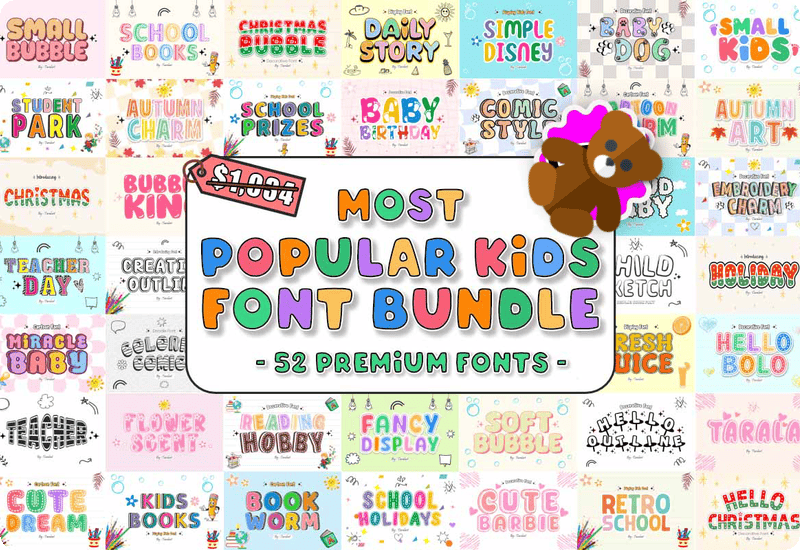
What’s inside — 52 kid‑friendly fonts
Bring variety to your layouts with this wide mix of playful, seasonal, and school‑themed typefaces:
- Small Kids — Display Font (TaralArt)
- Embroiderycharm Regular — Decorative Font (TaralArt)
- Christmas — Decorative Font (TaralArt)
- Creativeoutline Regular — Display Font (TaralArt)
- Baby Birthday — Decorative Font (TaralArt)
- Flowerscent Regular — Decorative Font (TaralArt)
- Bubble King — Display Font (TaralArt)
- Child Sketch — Display Font (TaralArt)
- Readinghobby Regular — Decorative Font (TaralArt)
- Kids Books — Display Font (TaralArt)
- Softbubbles Regular — Display Font (TaralArt)
- Cutebarbie Regular — Display Font (TaralArt)
- Christmas Bubble — Decorative Font (TaralArt)
- Babydog Regular — Decorative (TaralArt)
- Hello Christmas — Decorative Font (TaralArt)
- Dailystory Regular — Display Font (TaralArt)
- Cloud Baby — Decorative Font (TaralArt)
- Hello Outline — Decorative Font (TaralArt)
- School Holidays — Decorative Font (TaralArt)
- Halloween — Decorative Font (TaralArt)
- Coloring Comics — Decorative Font (TaralArt)
- Autumncharm Regular — Display Font (TaralArt)
- Autumnart Regular — Display Font (TaralArt)
- Kraukkrauk Regular — Display Font (TaralArt)
- Simple Disney — Display Font (TaralArt)
- Retro School — Display Font (TaralArt)
- Children Comics — Display Font (TaralArt)
- Babyzone Regular — Display Font (TaralArt)
- Heroes — Display Font (TaralArt)
- Teacher — Decorative Font (TaralArt)
- School Books — Display Font (TaralArt)
- My Feet — Decorative (TaralArt)
- World War — Decorative Font (TaralArt)
- Fancy Display — Display Font (TaralArt)
- Small Bubble — Display Font (TaralArt)
- Student Park — Display Font (TaralArt)
- Hellobolo Regular — Decorative Font (TaralArt)
- Freshjuice Regular — Display Font (TaralArt)
- Bookworm — Display Font (TaralArt)
- Comicstyle Regular — Decorative Font (TaralArt)
- Funny Doodle — Decorative Font (TaralArt)
- School Prizes — Display Font (TaralArt)
- Cartooncharm Regular — Display Font (TaralArt)
- Halloween Blood — Decorative Font (TaralArt)
- Tarala — Display Font (TaralArt)
- Biground Regular — Decorative Font (TaralArt)
- Cute Dream — Decorative Font (TaralArt)
- Teacher Day — Decorative Font (TaralArt)
- Miraclebaby Regular — Display Font (TaralArt)
- Octopus Sketch — Decorative Font (TaralArt)
- Drawing Letters — Decorative Font (TaralArt)
- Holiday — Decorative Font (TaralArt)
Why this bundle is a smart pick
- Kid‑ready readability: Rounded forms, generous spacing, and friendly curves support early readers while keeping headlines bold and energetic.
- One bundle, many moods: From school themes to birthdays and holidays, you’ll find bubbly displays, sketch styles, outlines, and seasonal looks that fit countless projects.
- Brand‑safe consistency: Reuse the same font families across flyers, worksheets, covers, socials, and merch for a unified look that customers remember.
- Time savings: Drop‑in typography beats drawing letters from scratch. Build titles, quotes, and word art in minutes.
Ideal for
- Teachers & schools: Bulletin boards, classroom labels, reward certificates, worksheets, sight‑word posters, reading logs, and event signage.
- Parents & party planners: Birthday invites, thank‑you cards, cupcake toppers, banners, and photo‑booth props.